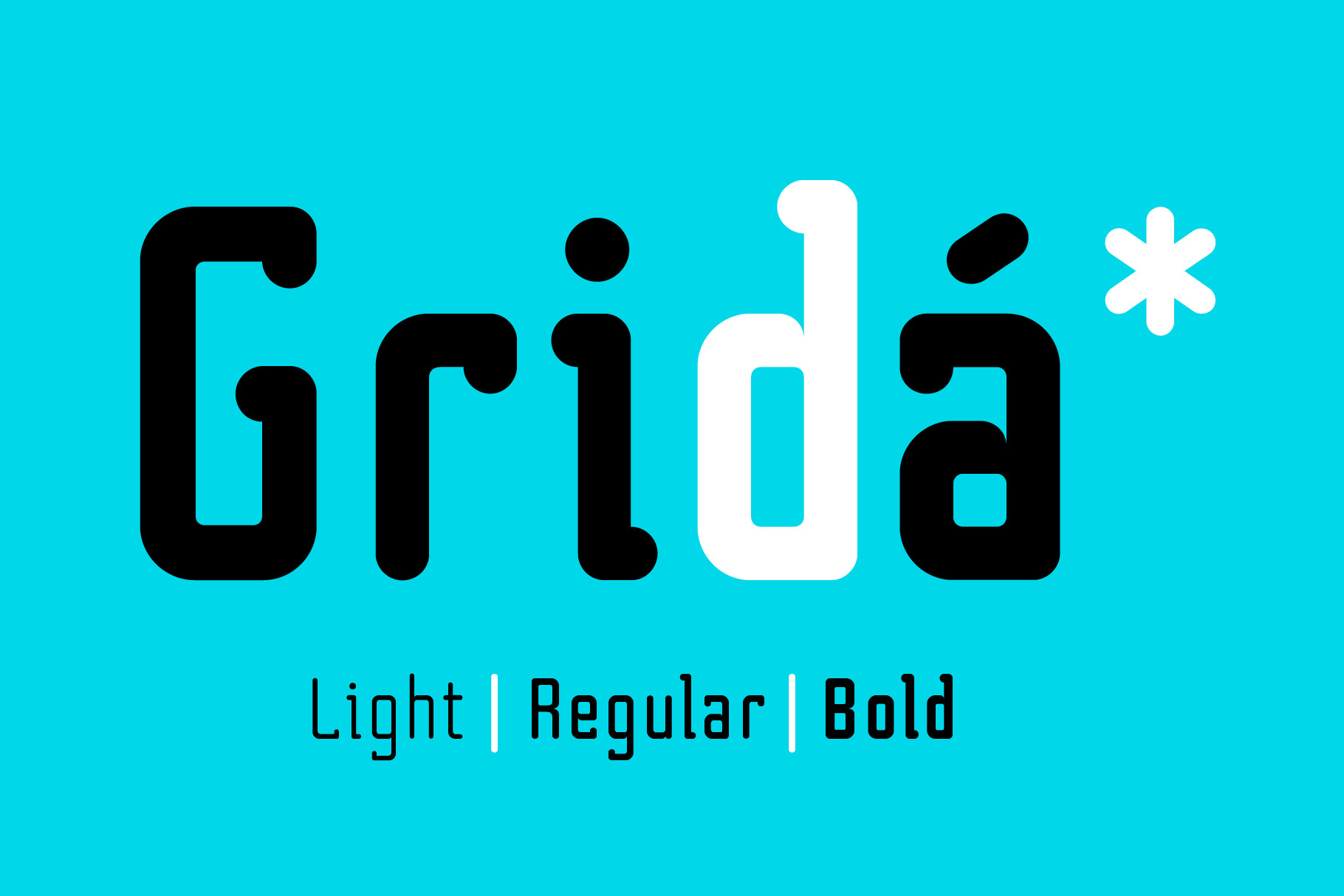
Grida Font Family
Grida is a sleek and modern typeface inspired by a geometric grid. Each letter is meticulously crafted by filling sections of the grid, resulting in a clean and contemporary aesthetic. With three distinct weights – light, regular, and bold – Grida offers designers and creatives a versatile toolkit for a wide range of projects.
Characterized by its rounded features and distinctive personality, Grida exudes individuality and strength. Its extensive collection of characters, available in every weight, ensures seamless integration into various design applications.
Grida is ideal for use as a display font, making it perfect for large headlines, logo design, wordmarks, corporate identity projects, and branding initiatives. Its keywords – modern, geometric, technical, artificial intelligence, futuristic and sophisticated – capture the essence of its versatile nature, making it a must-have for any design arsenal.